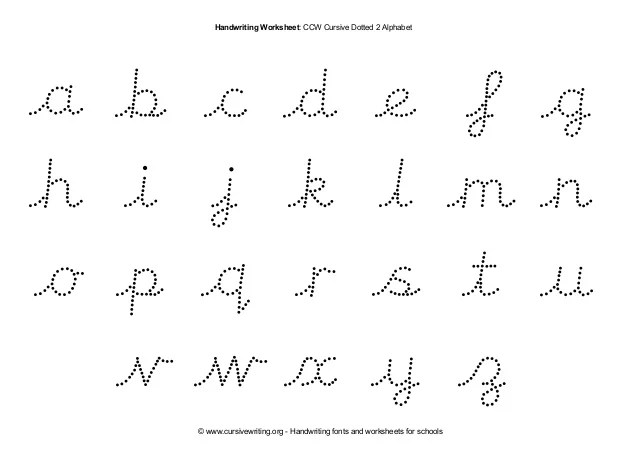
Pre Cursive Outline Font. In the arabic, latin, and cyrillic alphabets, many or all letters in a word are connected, sometimes making a word one single complex stroke. Complete family of 4 fonts:
Outline fonts have letters with a separate outer line. Candy cursive by okaycat 29.50 usd. The wordart styles tool group on the format ribbon allow you edit the text fill, text outline and text effects.
These Australian School Fonts Were Hand Written By Mez Merrit, Traced Into Inkscape And Published Using Fontforge.
These 10 fonts plus pdf manual comprises the qld beginner gt pack. The cursive handwriting style is functional and intended to be used for everyday writing. The outline fonts work as traceable fonts allowing children to practice letter formation for the younger grades and to practice cursive handwriting and for teachers to build cursive worksheets and handwriting practice worksheets for use across the grades
Free fonts often have not all characters and signs, and have no kerning pairs (avenue ↔ a venue, tea ↔ t ea). Bernhard cursive by rmu 25.00 usd. The outline fonts work as traceable fonts allowing children to practice letter formation for the younger grades and to practice cursive handwriting and for teachers to build cursive worksheets and handwriting practice worksheets for use across the grades